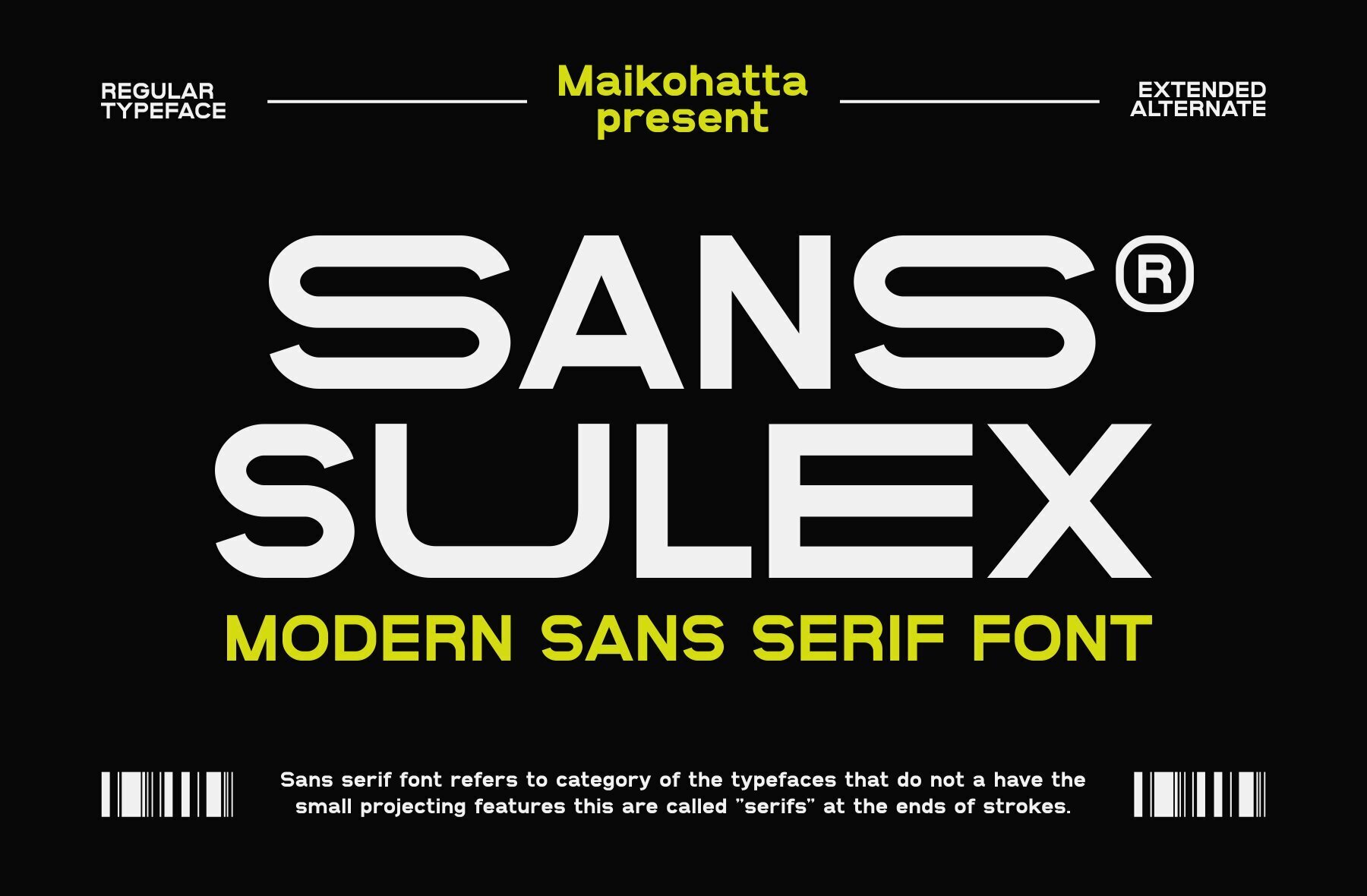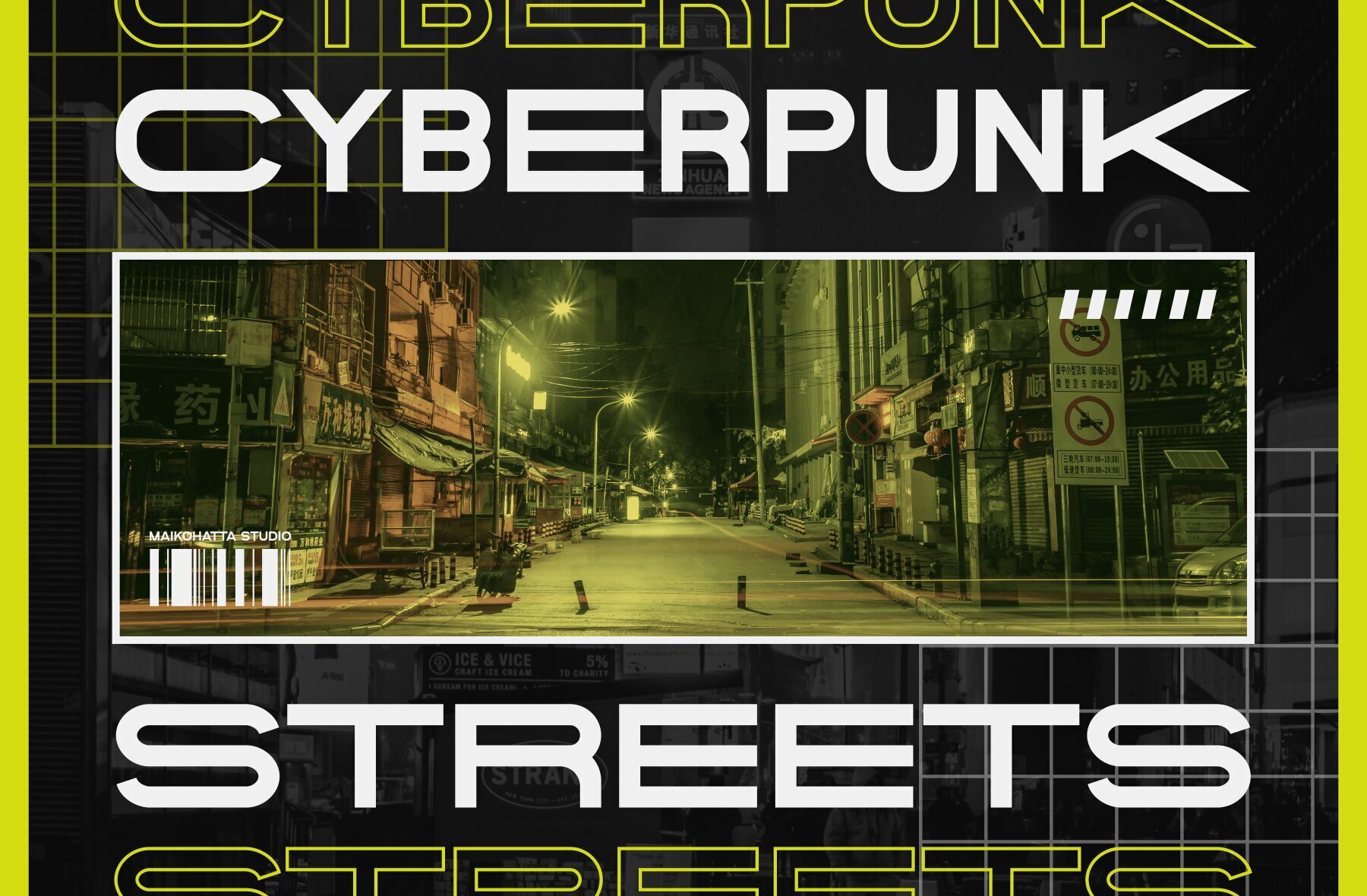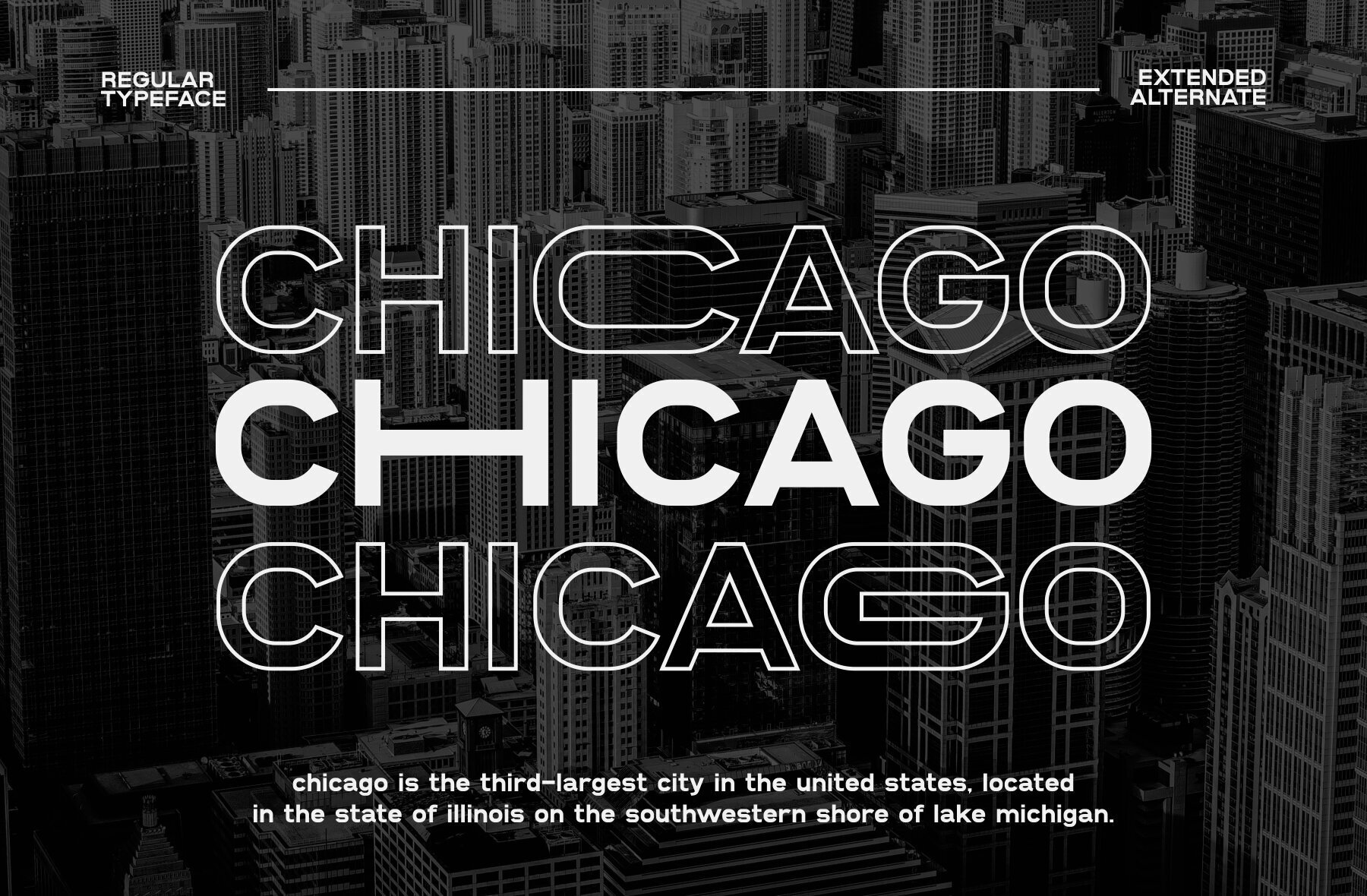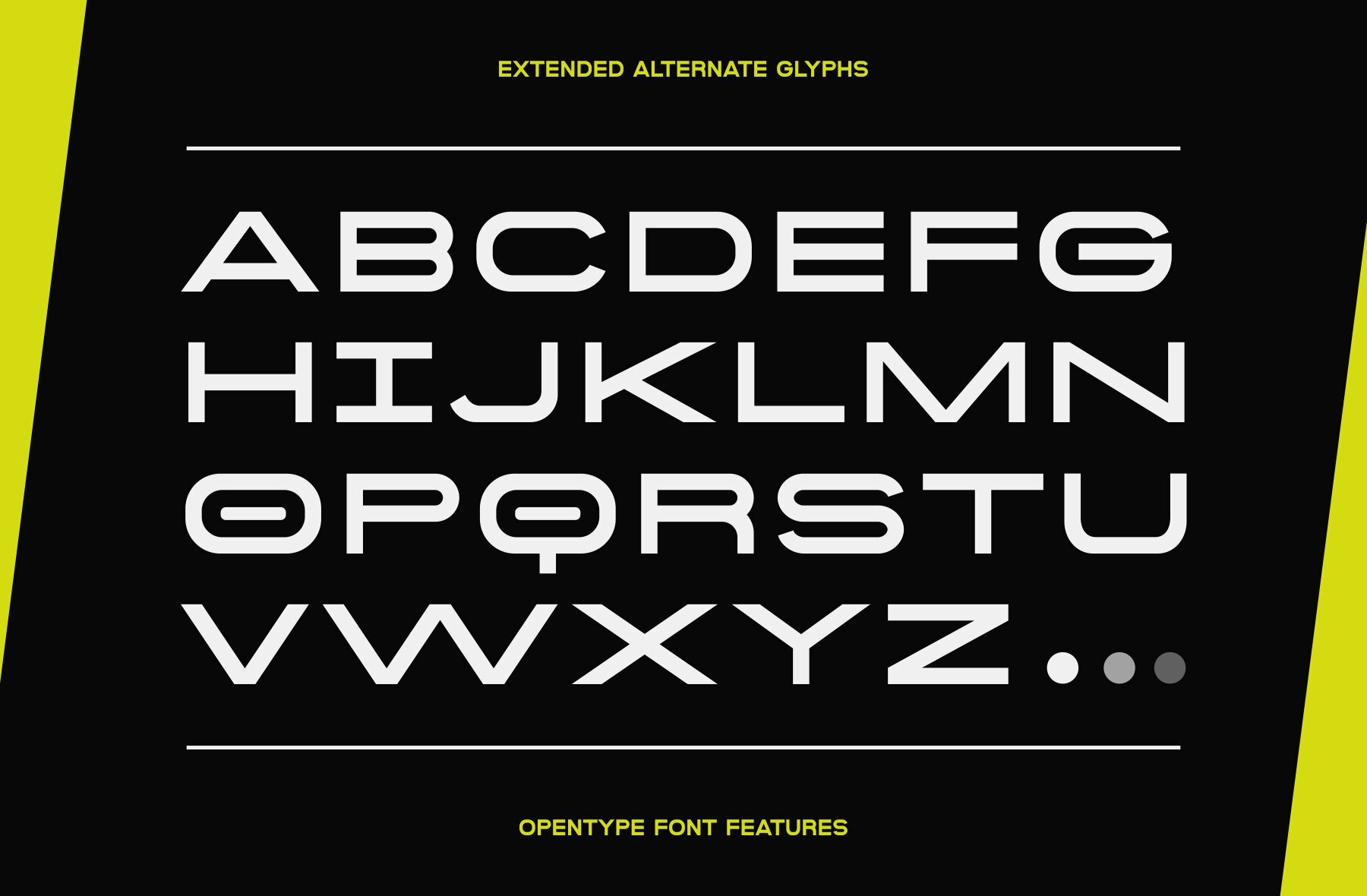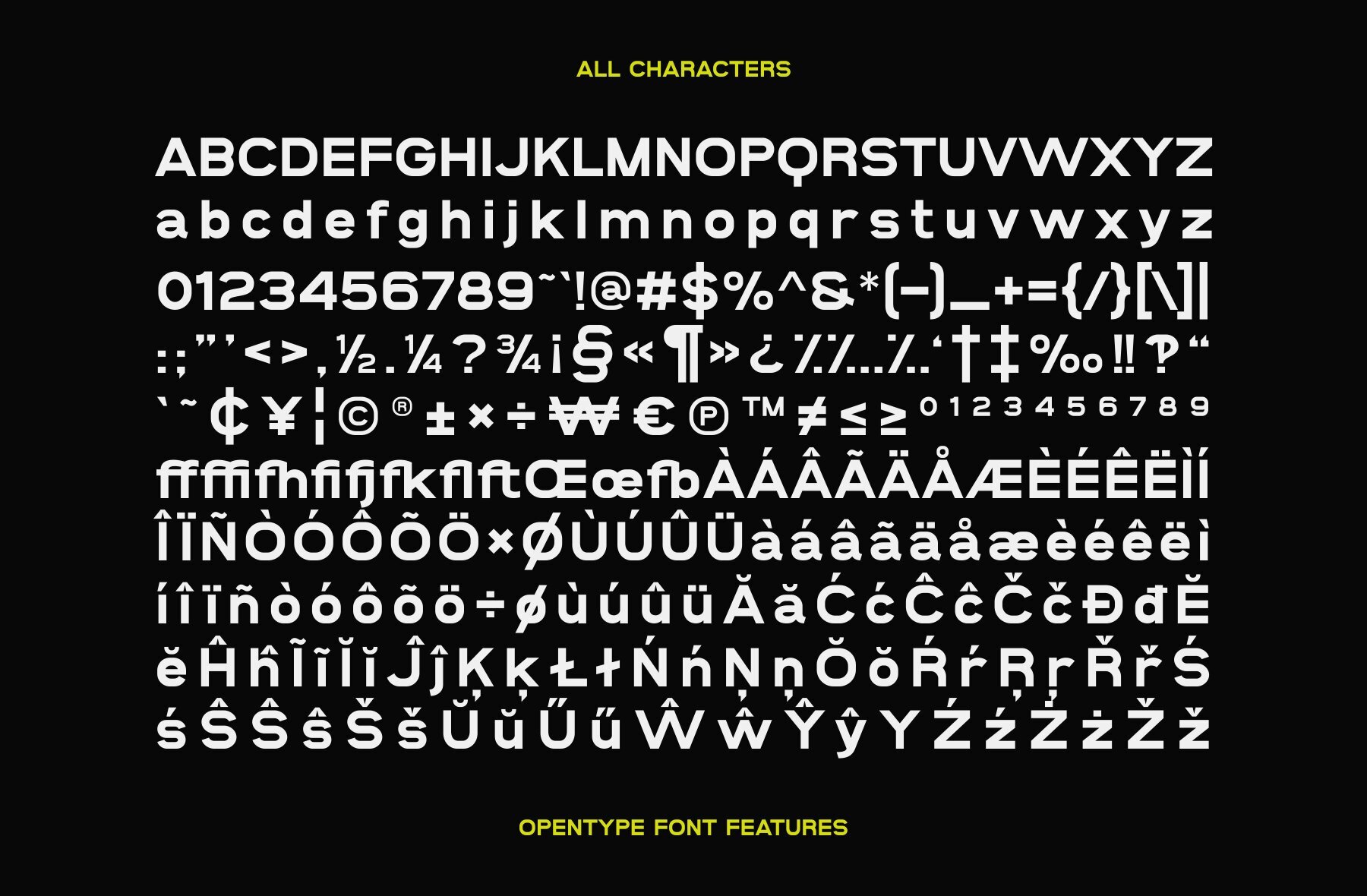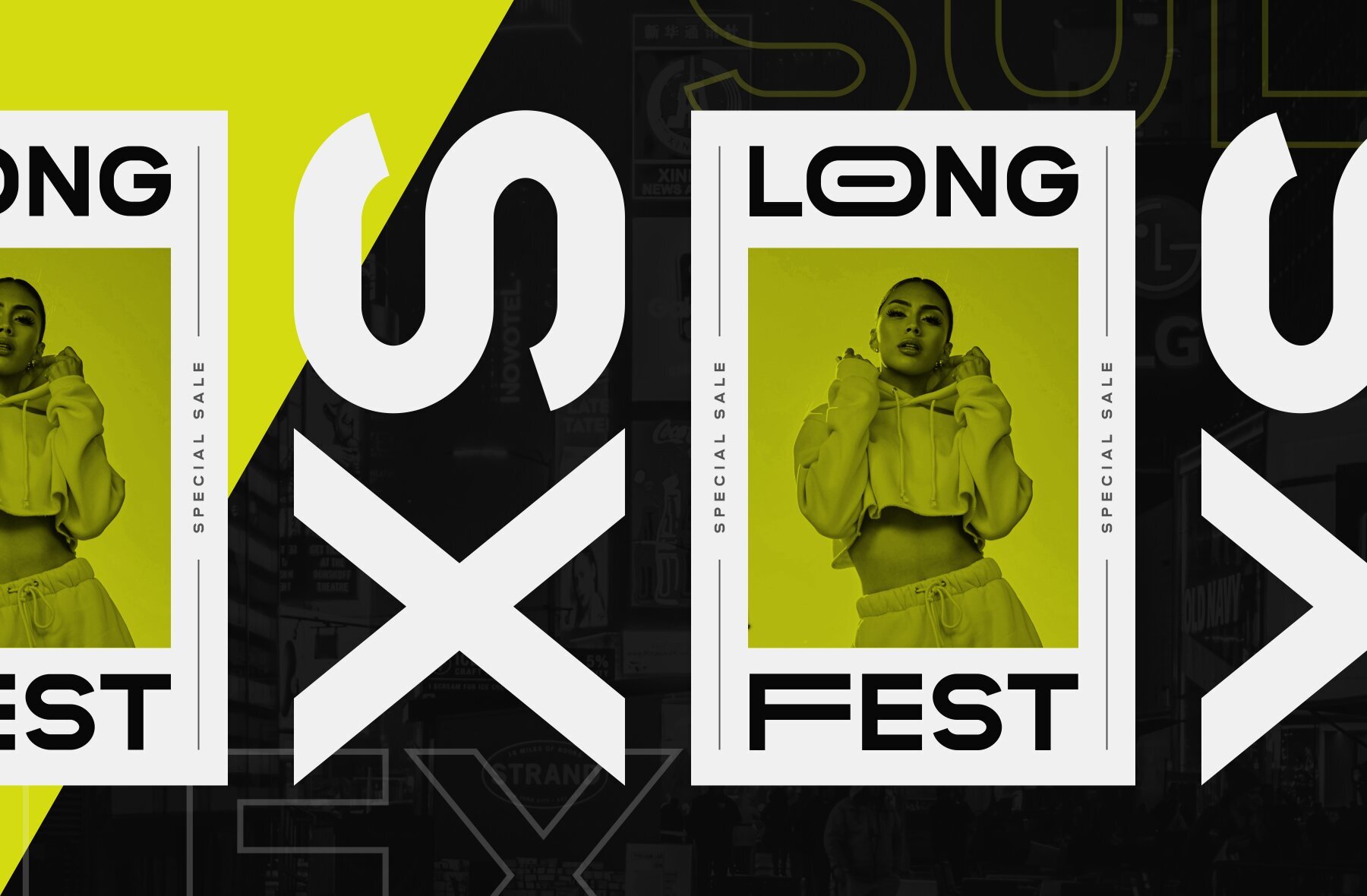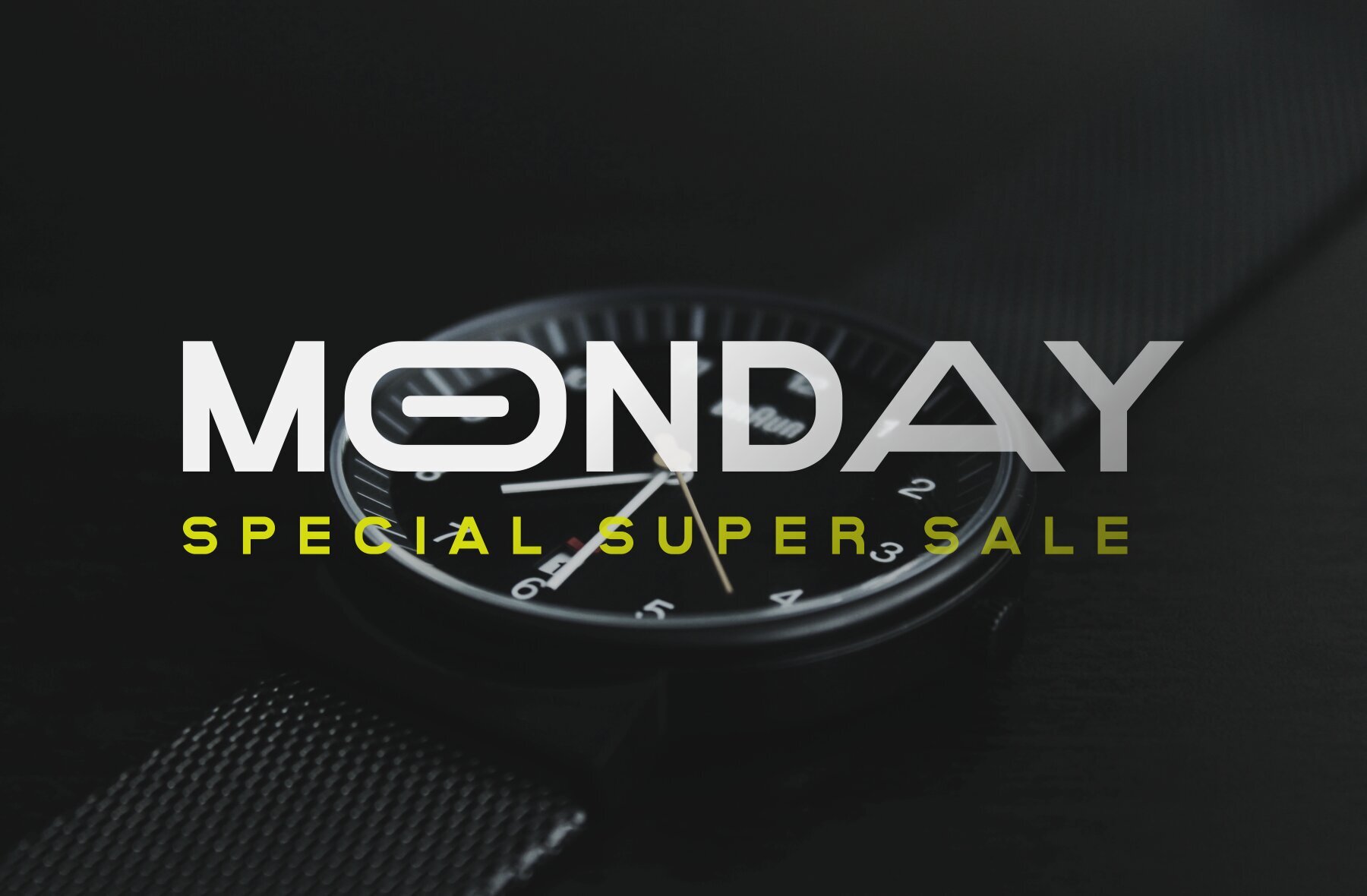
Sans Sulex Font
Sans Sulex Regular
Sans Sulex is a versatile modern sans serif font, perfect for a wide range of design contexts. Its clean and professional aesthetic brings a contemporary touch to any project, making it ideal for graphic design and modern typography needs. With its simplicity and visual appeal, Sans Sulex is an excellent choice for designers seeking a polished and sophisticated look.
Whether you’re working on branding, editorial design, or digital projects, Sans Sulex offers a flexible solution to meet your design objectives. Its seamless blend of functionality and style ensures that your text stands out without overwhelming the overall design.